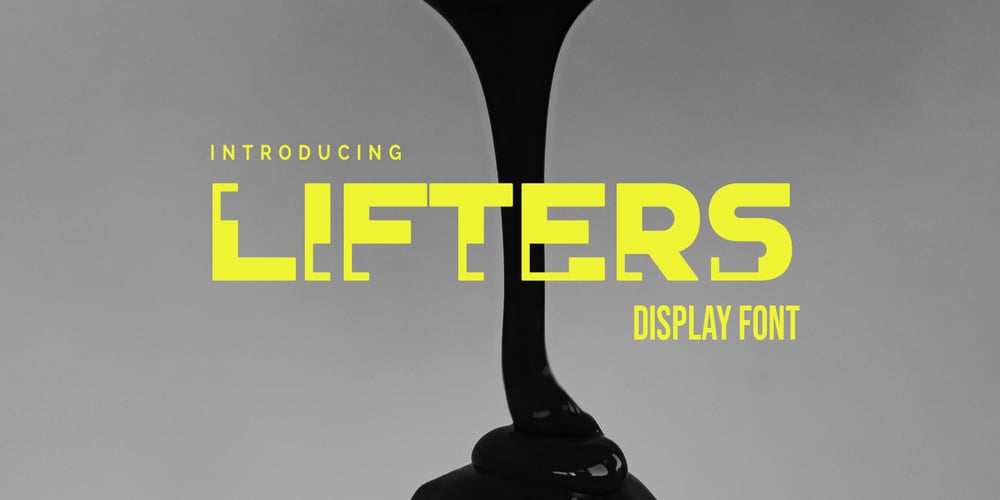
Lifters Font Family was designed by RoninDesign and published by Ronin Design. Lifters contains 1 styles and family package options. Lifters is a unique and modern display font. Shifter will work perfectly for logos, branding, advertising, and any kind of project.